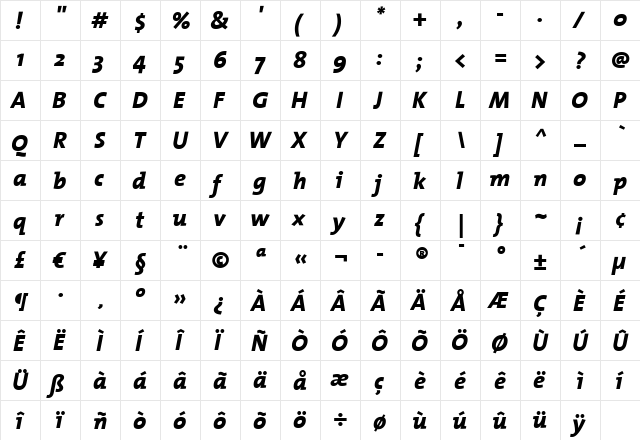
TheMix ExtraBold Italic
| Foundry | Copr. Luc as de Groot |
Design Context for TheMix Typeface
TheMix offers clean, dependable letterforms without strong stylistic allegiance, making it a practical choice for designers who need flexibility. Its italic angle brings a sense of urgency and motion to the letterforms. Its bold stroke weight gives it real presence on the page.